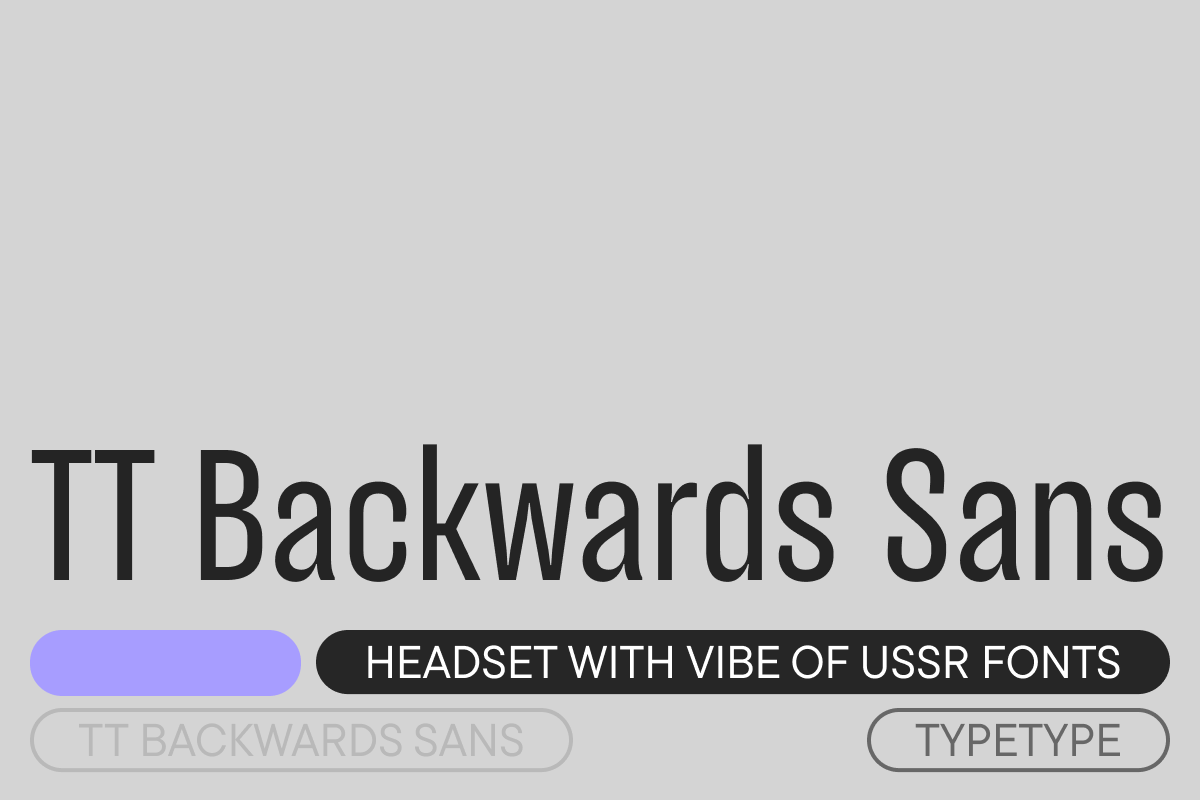
TT Backwards Sans Regular
TT Backwards is an experimental font project inspired by the USSR typography and fonts of the late 70s and early 80s. Shop signs, posters, and book design—this is where we drew the inspiration for our project from. TT Backwards Sans is a narrow grotesque which takes us back to the book design of late 70s and early 80s with its ductile characters. It is created considering its use in the small text size.